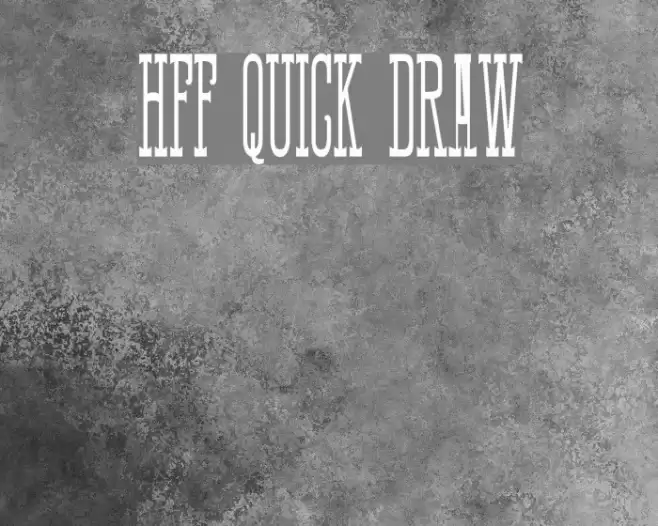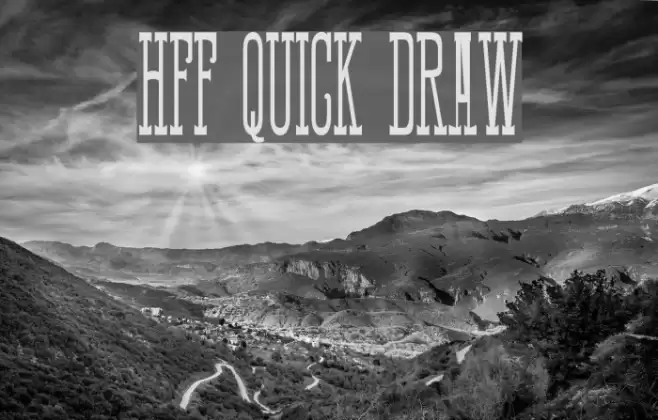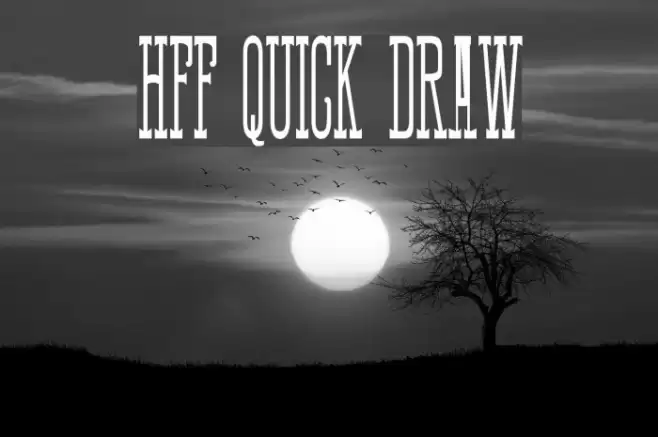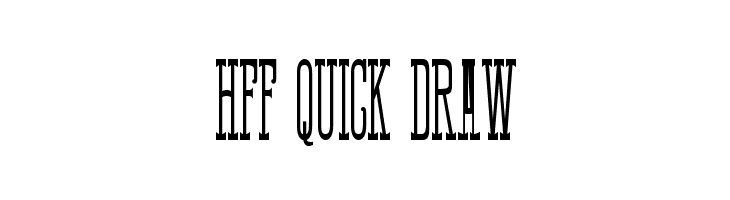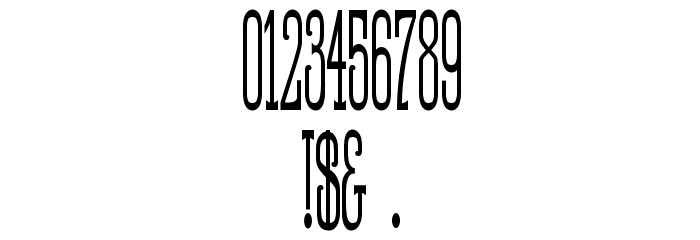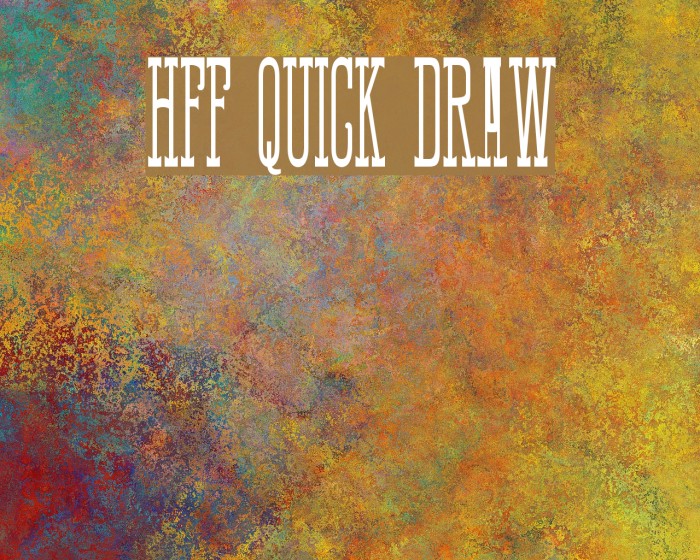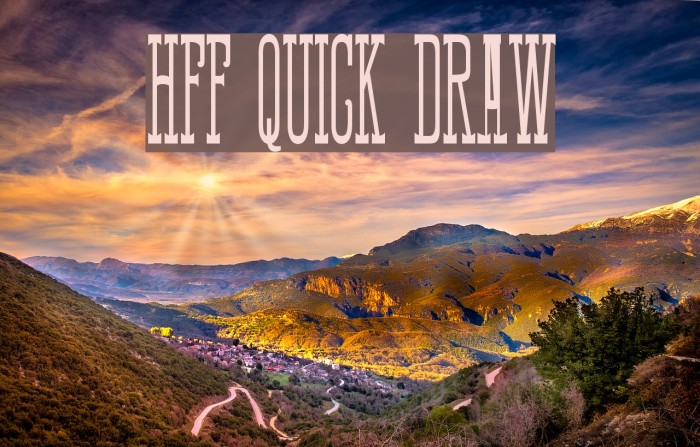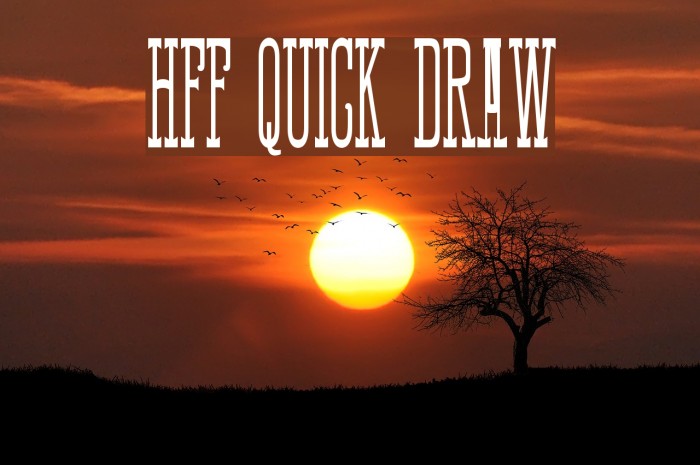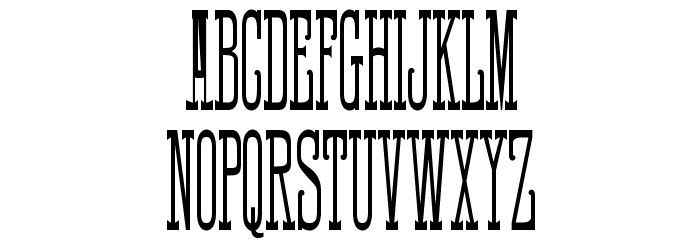
HFF Quick Draw Font
HFF Quick Draw Description
This font features a bold, decorative style with a strong presence. The characters are tall and narrow, with pronounced serifs that give it a distinctive, vintage feel. The uppercase letters are particularly striking, with a uniform height and consistent spacing that enhances readability. The numerals and special characters maintain the same stylistic elements, ensuring a cohesive look across all text. This font's unique design makes it ideal for creating eye-catching headlines or logos that require a touch of elegance and flair.
A bold, decorative font with tall, narrow characters and pronounced serifs from Uncategorized fonts.
- Proposed Projects: Ideal for vintage-themed posters, logos, or branding materials that require a bold statement.
- Overall Style: Vintage